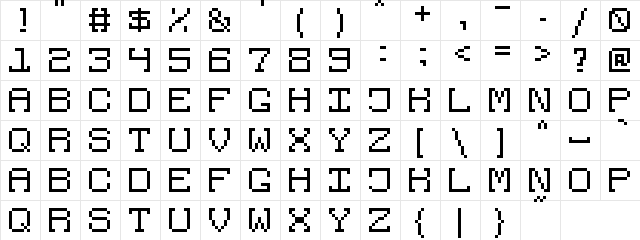
Atari Abandoned Regular
| Designer | NuclearTape |
Design Context for Atari Abandoned Typeface
Atari Abandoned takes a measured approach to typography — its balanced proportions and neutral character make it a reliable workhorse for both digital and print work.